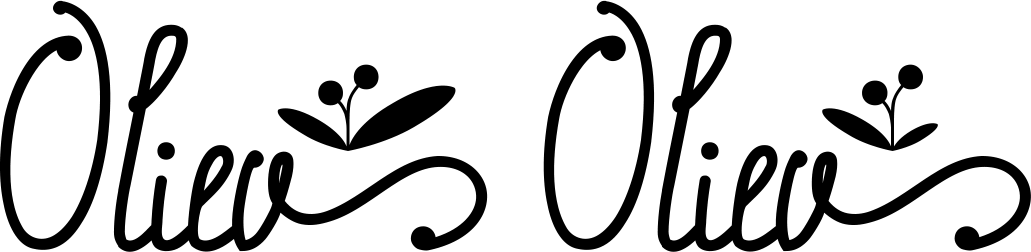
Oliev Oliev Font
If you are searching for a script font but not the normal one, you may like to give it a chance to Oliev Oliev. This one shows thin and delicate letters and works great for related projects such as; menus, shop signs, food packaging, and whatnot. Hit the download button and see it on your layout.